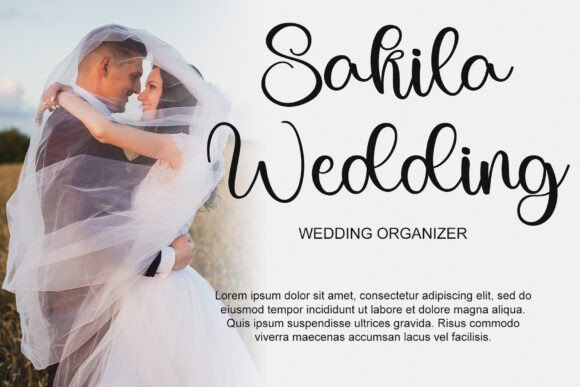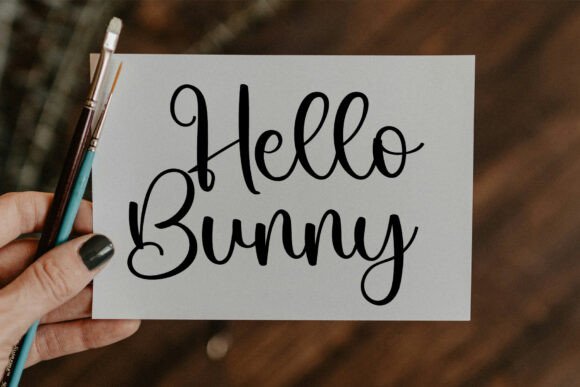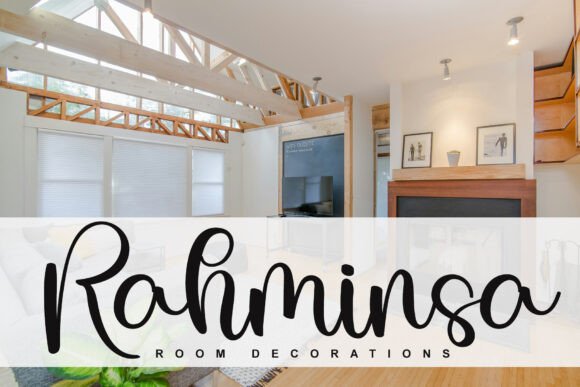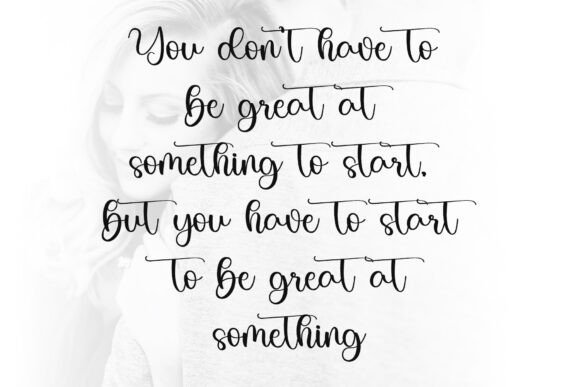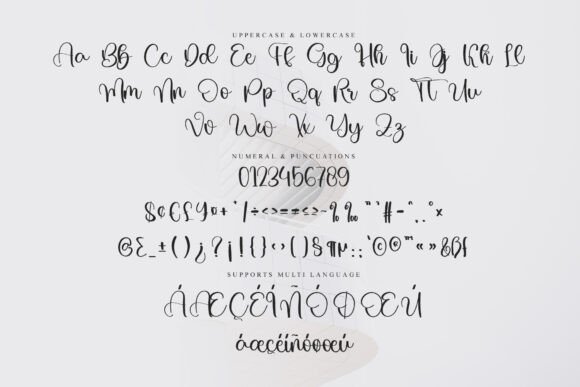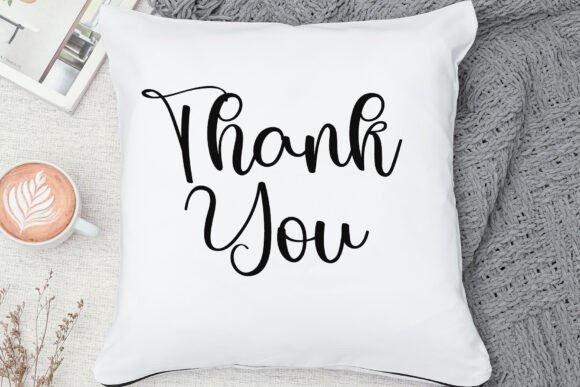
Grateful Easter: A Nostalgic Elegant Script Font for Timeless Designs
Step into a world of timeless charm with Grateful Easter, a beautifully crafted handwritten script font that combines vintage elegance with heartwarming character. This elegant script font features delicate flourishes and natural variations, perfect for designs that crave both sophistication and nostalgic personality.
The Charm of Grateful Easter
Grateful Easter is more than just a font – it’s an experience. Imagine a warm, sunny afternoon spent flipping through old family recipe books, filled with handwritten notes and tender memories. This font brings that feeling to life, with its soft, flowing lines and gentle imperfections that evoke a sense of nostalgia and warmth.
Whether you’re creating heirloom recipes, retro packaging, or sentimental stationery, Grateful Easter adds that special handwritten touch that feels like a cherished memory. Its elegant script style is perfect for designers and crafters who want to add a touch of sophistication and personality to their projects.
Key Features of Grateful Easter
• Vintage Elegance: Grateful Easter boasts a classic, timeless look that’s perfect for designs that require a touch of sophistication.
• Handwritten Charm: The font’s natural variations and delicate flourishes give it a warm, handwritten feel that’s sure to capture the hearts of your audience.
• Elegant Script Style: Grateful Easter’s script style is perfect for creating beautiful, eye-catching designs that stand out from the crowd.
• Perfect for Crafting and Design: Whether you’re a designer, crafter, or DIY enthusiast, Grateful Easter is the perfect addition to your creative toolkit.
Using Grateful Easter in Your Designs
Grateful Easter is incredibly versatile, and can be used in a wide range of design projects. Here are just a few ideas to get you started:
• Heirloom Recipes: Add a touch of nostalgia to your recipe designs with Grateful Easter’s elegant script style.
• Retro Packaging: Create eye-catching packaging that stands out from the crowd with Grateful Easter’s vintage charm.
• Sentimental Stationery: Add a personal touch to your stationery designs with Grateful Easter’s warm, handwritten feel.
• Wedding and Event Design: Use Grateful Easter to create beautiful, elegant designs for weddings, anniversaries, and other special occasions.
Why Choose Grateful Easter?
With so many fonts to choose from, why should you choose Grateful Easter? Here are just a few reasons:
• Unique and Authentic: Grateful Easter is a one-of-a-kind font that’s sure to set your designs apart from the crowd.
• High-Quality Design: This font is meticulously crafted to ensure that it looks beautiful in any design.
• Easy to Use: Grateful Easter is incredibly easy to use, even for designers who are new to script fonts.
In conclusion, Grateful Easter is a beautiful, elegant script font that’s perfect for designers and crafters who want to add a touch of timeless charm to their projects. With its vintage elegance, handwritten charm, and elegant script style, this font is sure to capture the hearts of your audience. Whether you’re creating heirloom recipes, retro packaging, or sentimental stationery, Grateful Easter is the perfect addition to your creative toolkit.